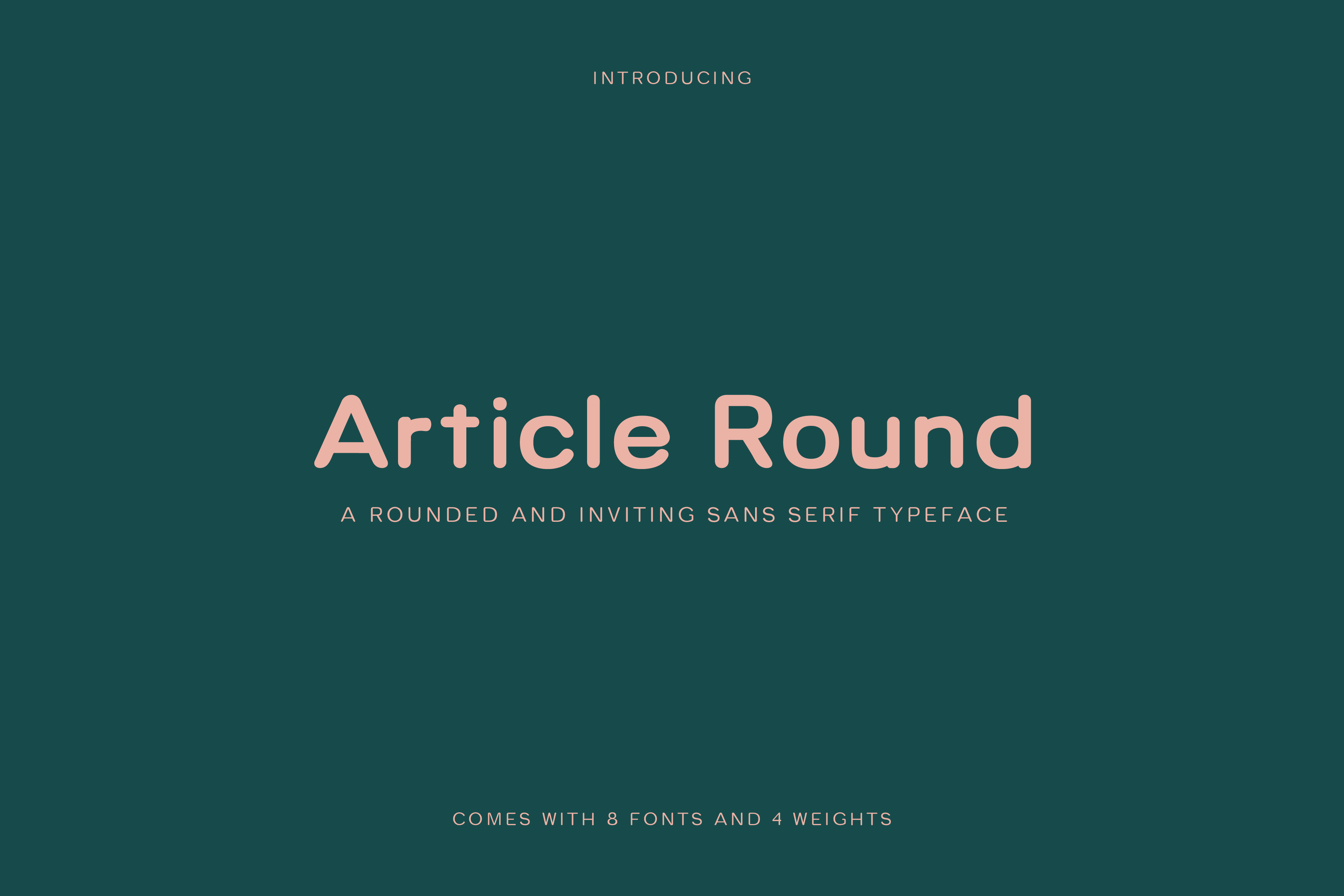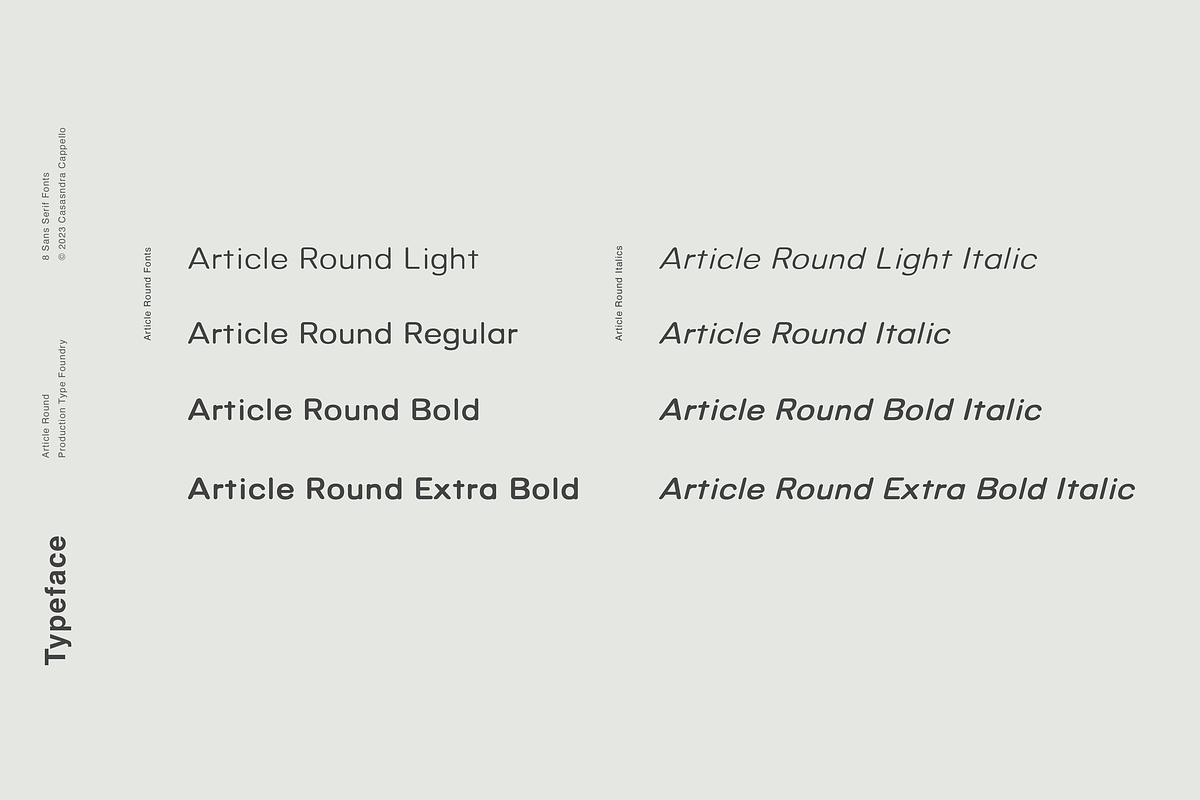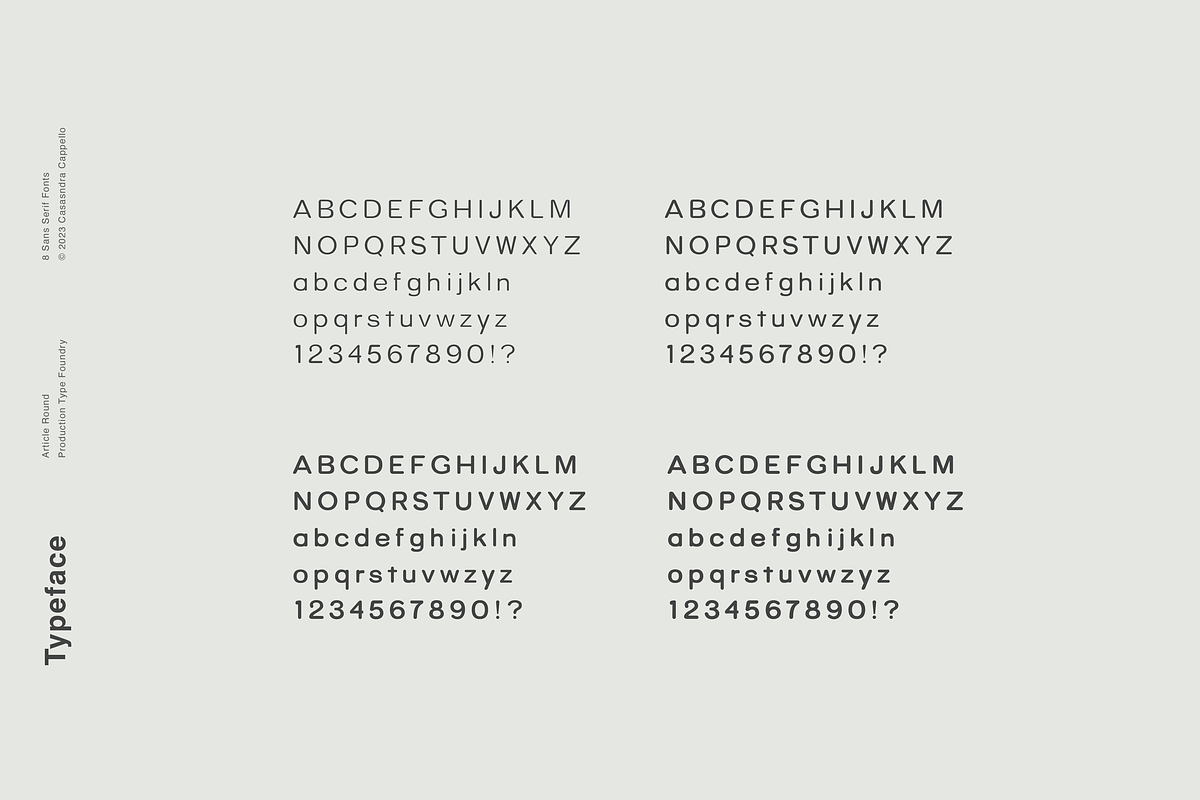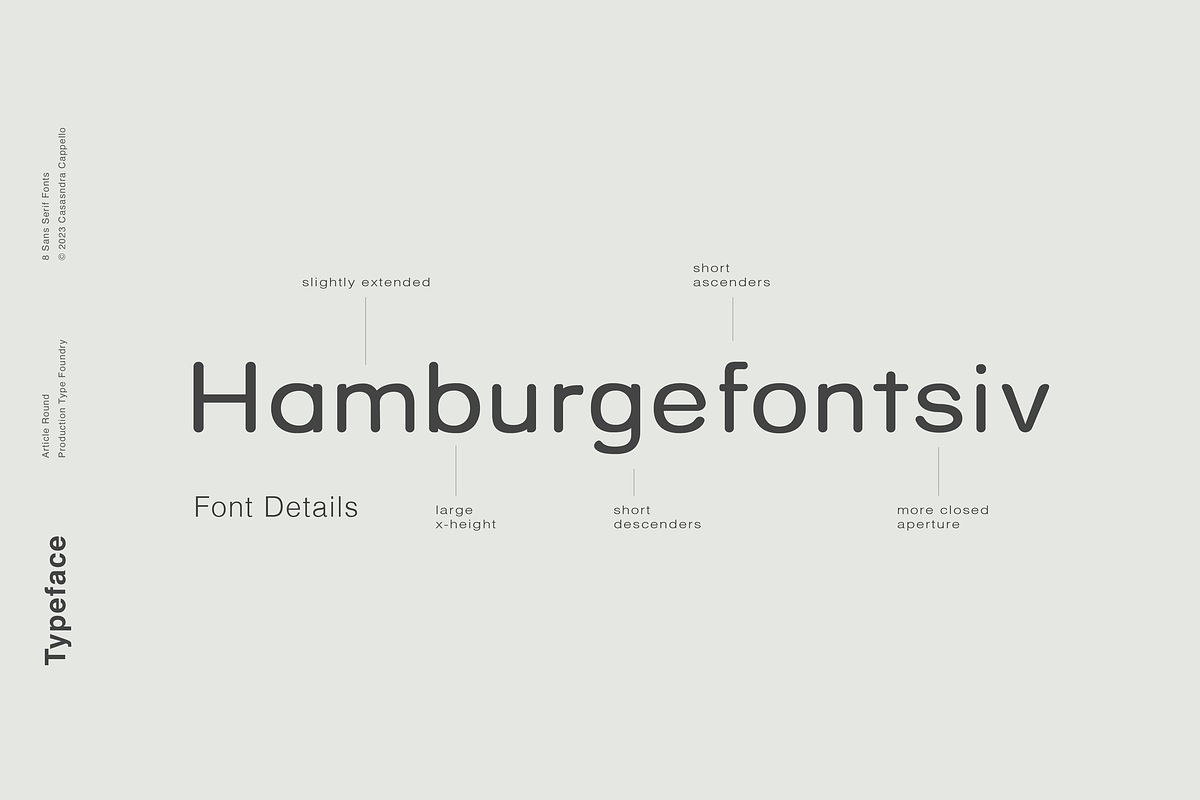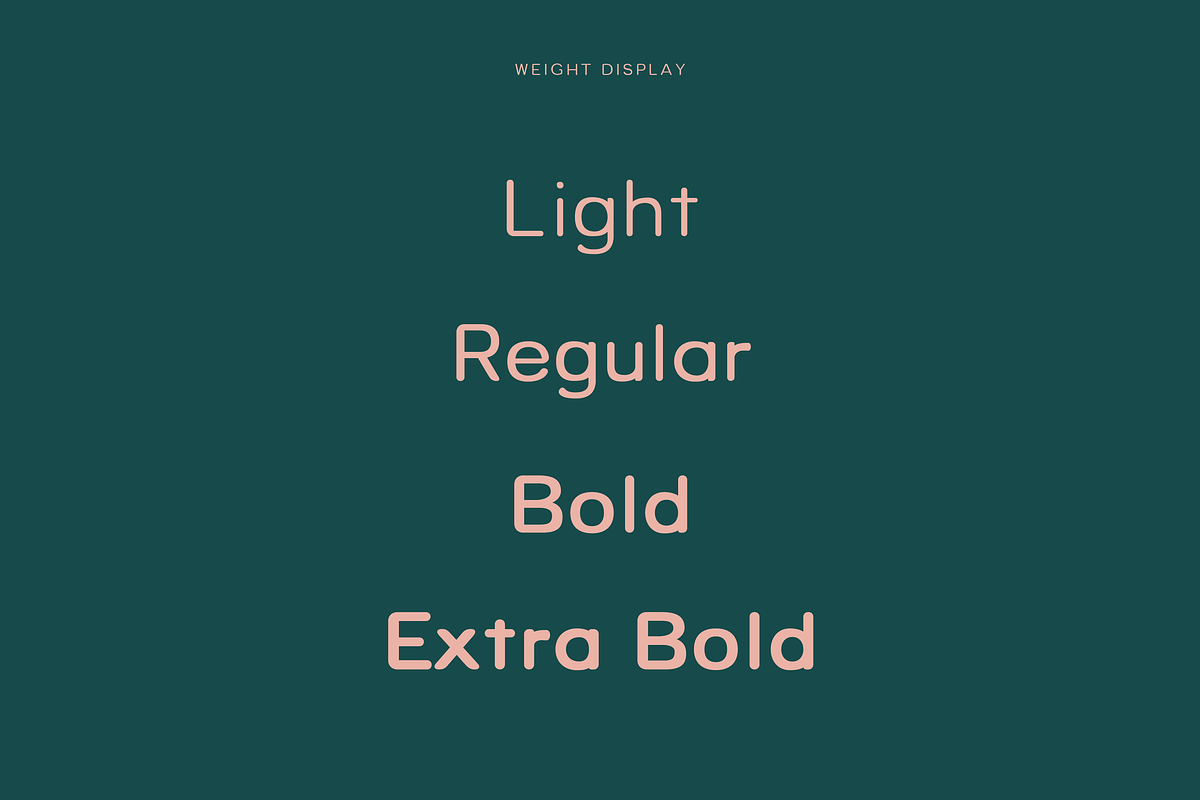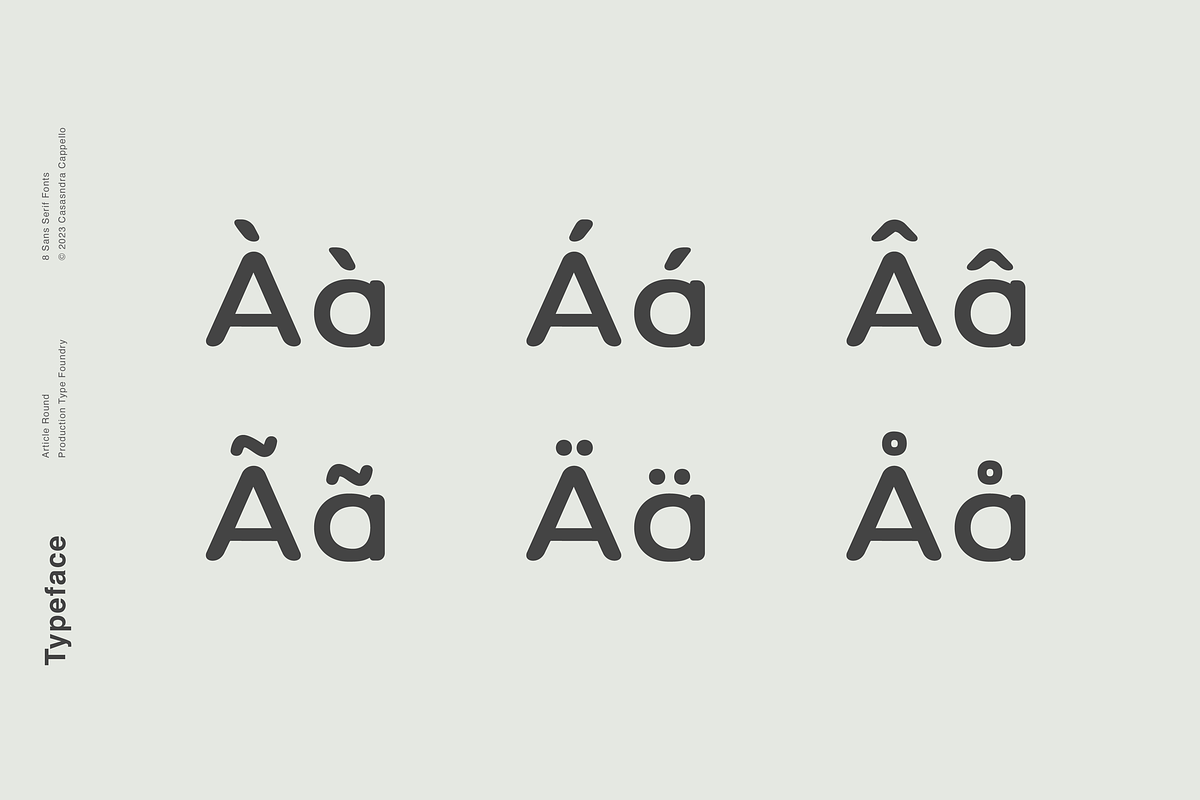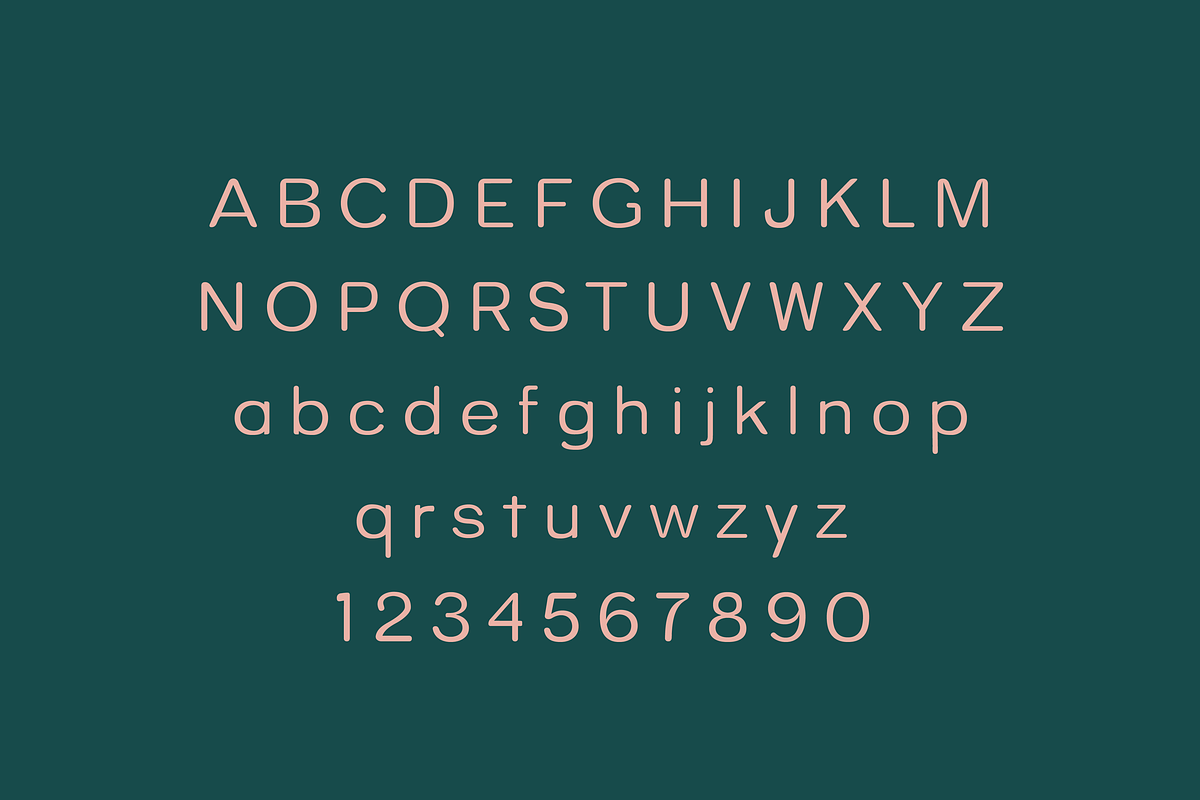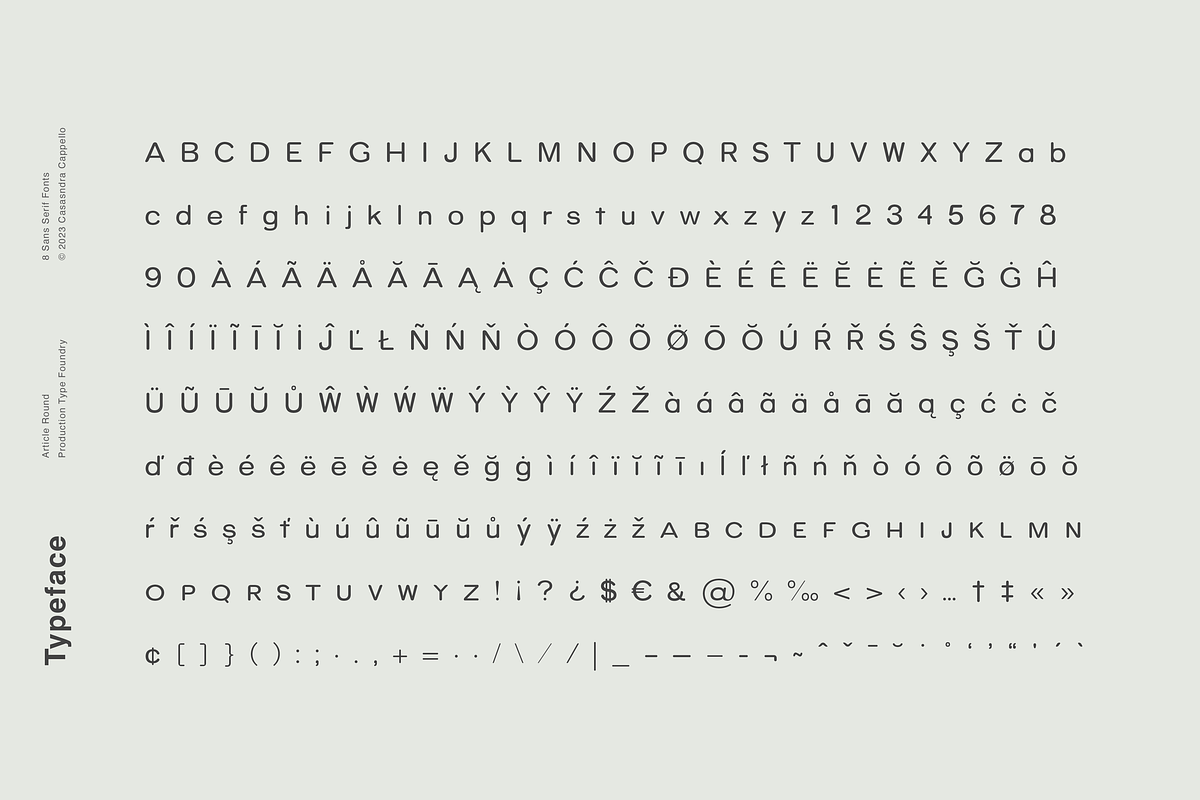
Article Round - A Geometric Typeface
Article Round is a modern, geometric, sans serif typeface. It has a little bit of personality and can be used for both headers and body copy. This font family includes all Latin characters (including accents), numbers, special characters, and punctuation.